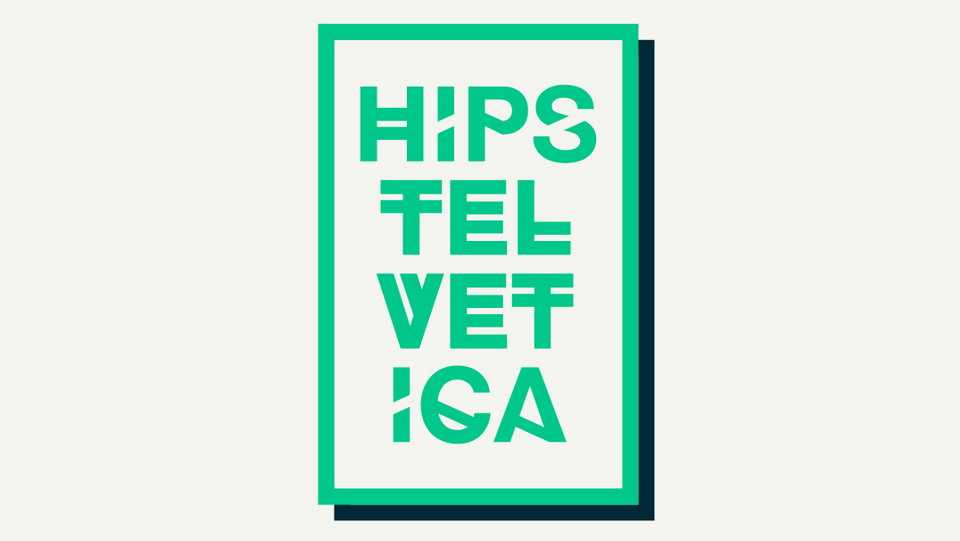
Hipstelvetica Font Family › Fontesk – Download Grátis
Download Hipstelvetica typeface, an experimental display font family in three weights inspired by the legendary Helvetica design. Hipstelvetica fits best for modern type projects, branding, posters, banners, prints and more.